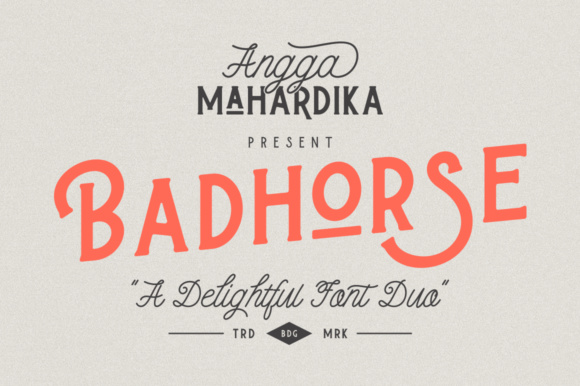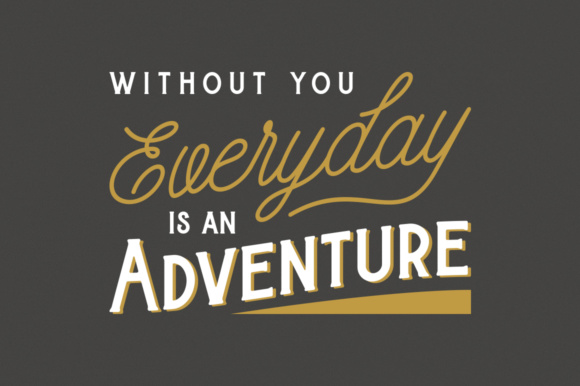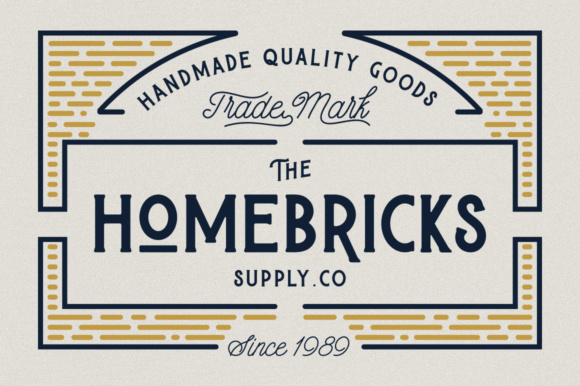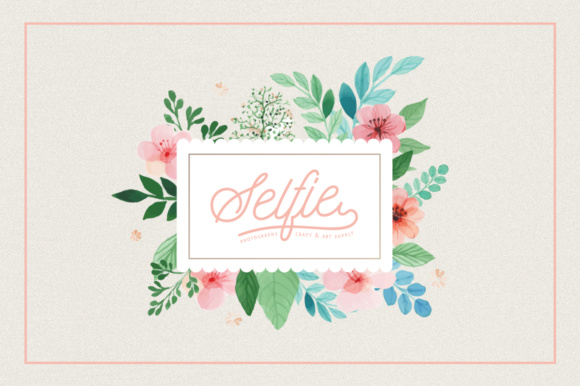
Badhorse Font: Playful Script & Serif Font Pairing for Creative Branding
About the Badhorse Font
Elevate your designs with Badhorse Font, a font that combines sophistication with readability. Badhorse is a new display font with clean characters.
It’s a delightful font duo that comes the clean serif with a playful script, allowing you to create the perfect headlines, signs, posters, cards and much more.
Badhorse excels as a display typeface for headlines, posters, and branding applications where a bold yet playful aesthetic is desired. Its clean serifs and accompanying script lend themselves well to short, impactful statements and eye-catching signage. However, the script, in particular, is less suitable for body text or extended reading due to its decorative nature. Avoid using it for UI elements or long-form content.
Pairing Badhorse effectively requires considering its inherent energy. For a more refined look, consider pairing the serif with a clean sans-serif like Lato or Open Sans. To amplify its playful character, a geometric sans-serif such as Montserrat or a casual script font could work well, depending on the desired level of formality.
The overall personality of Badhorse is best described as bold and friendly, making it ideal for brands targeting a youthful or vibrant audience. Projects such as event posters, product packaging for playful consumer goods, or logos for creative businesses would be excellent applications.
Badhorse Font Usage Examples
Badhorse Font Example